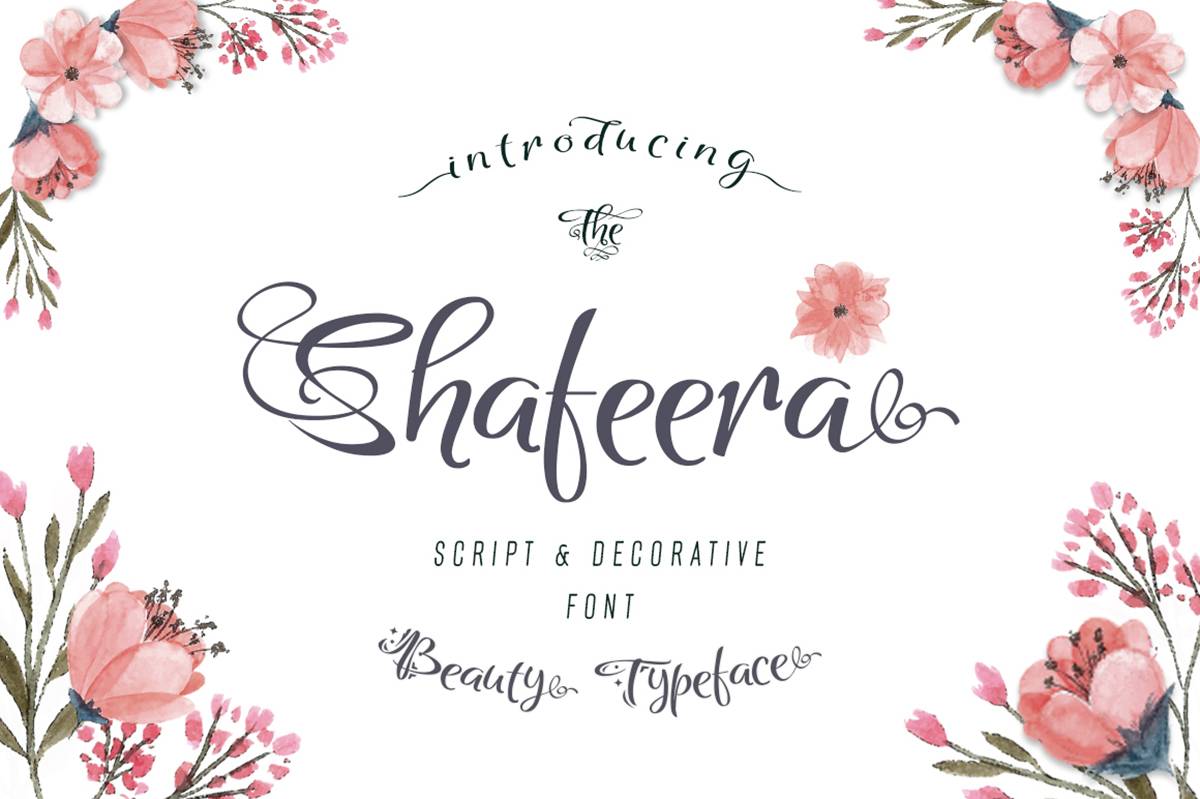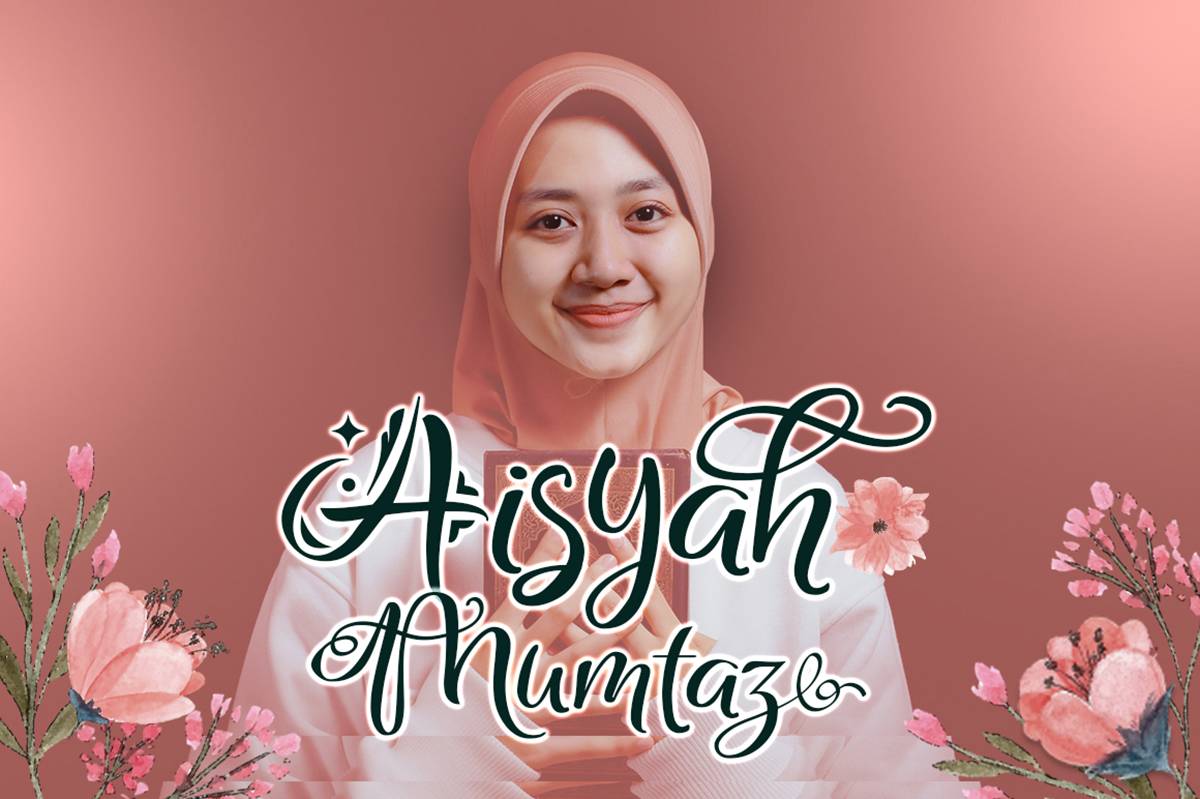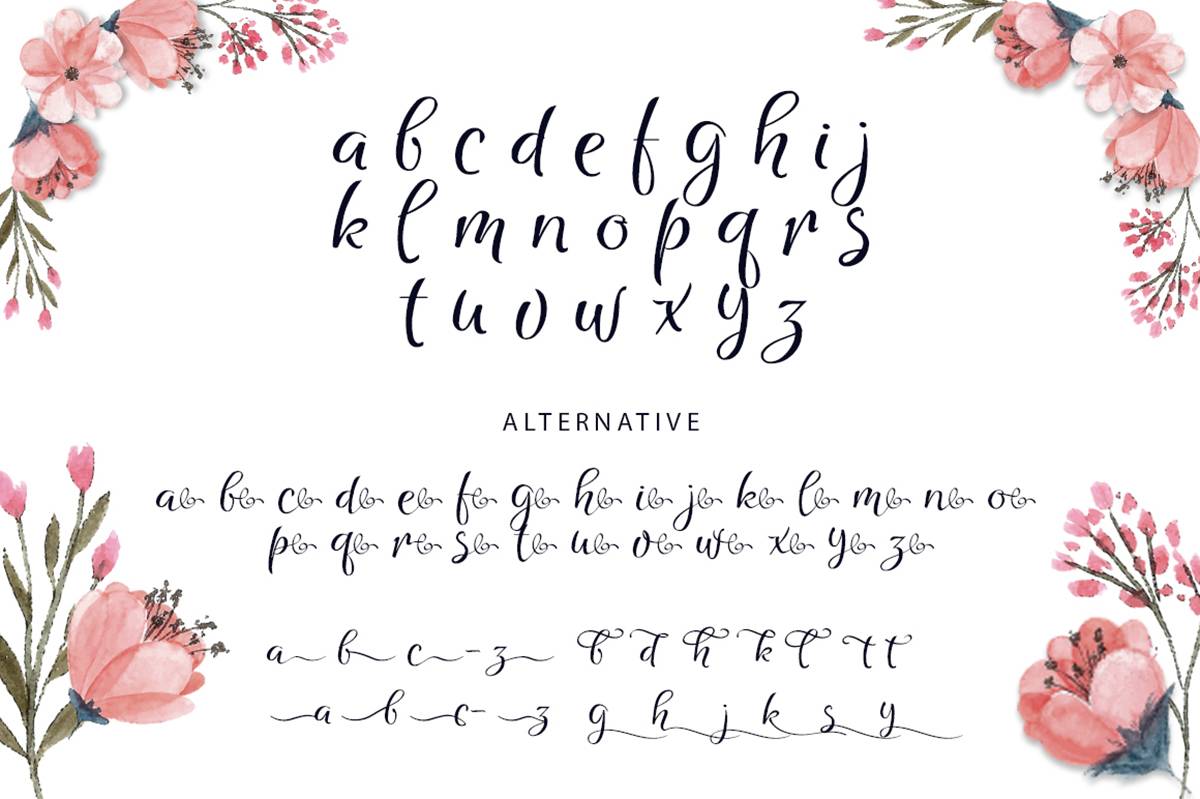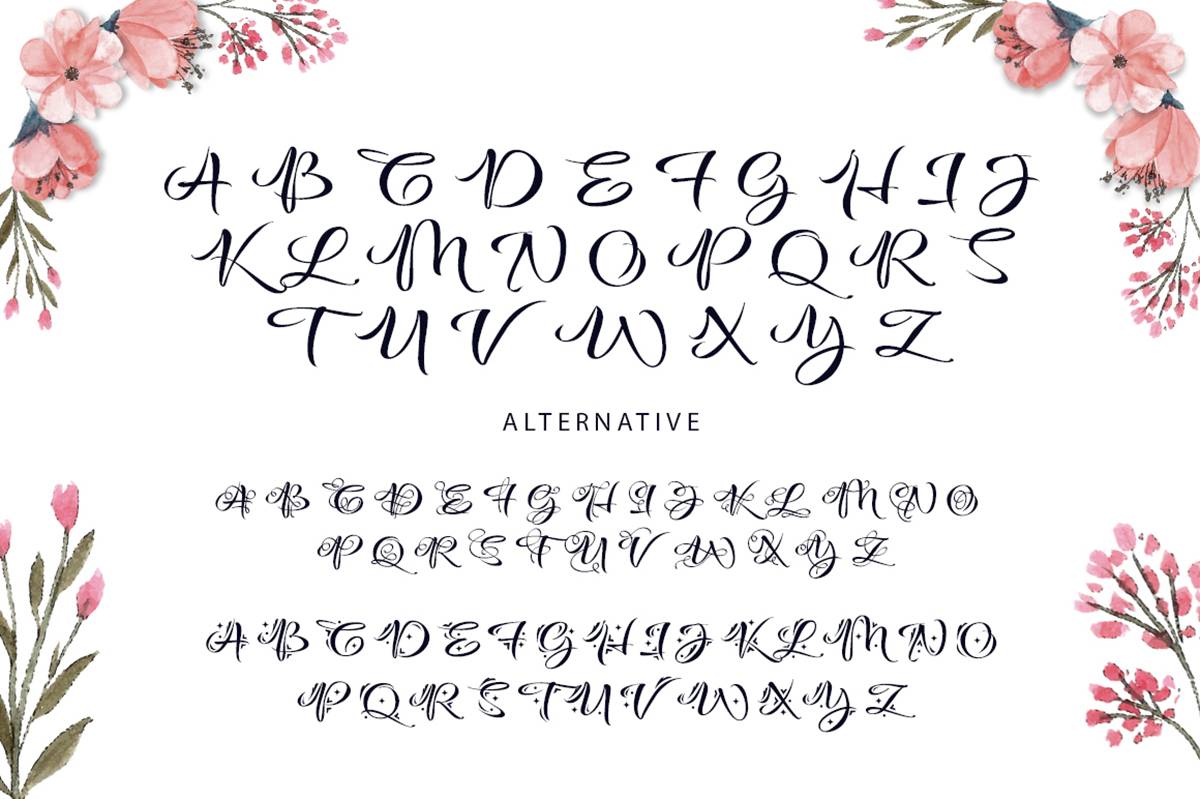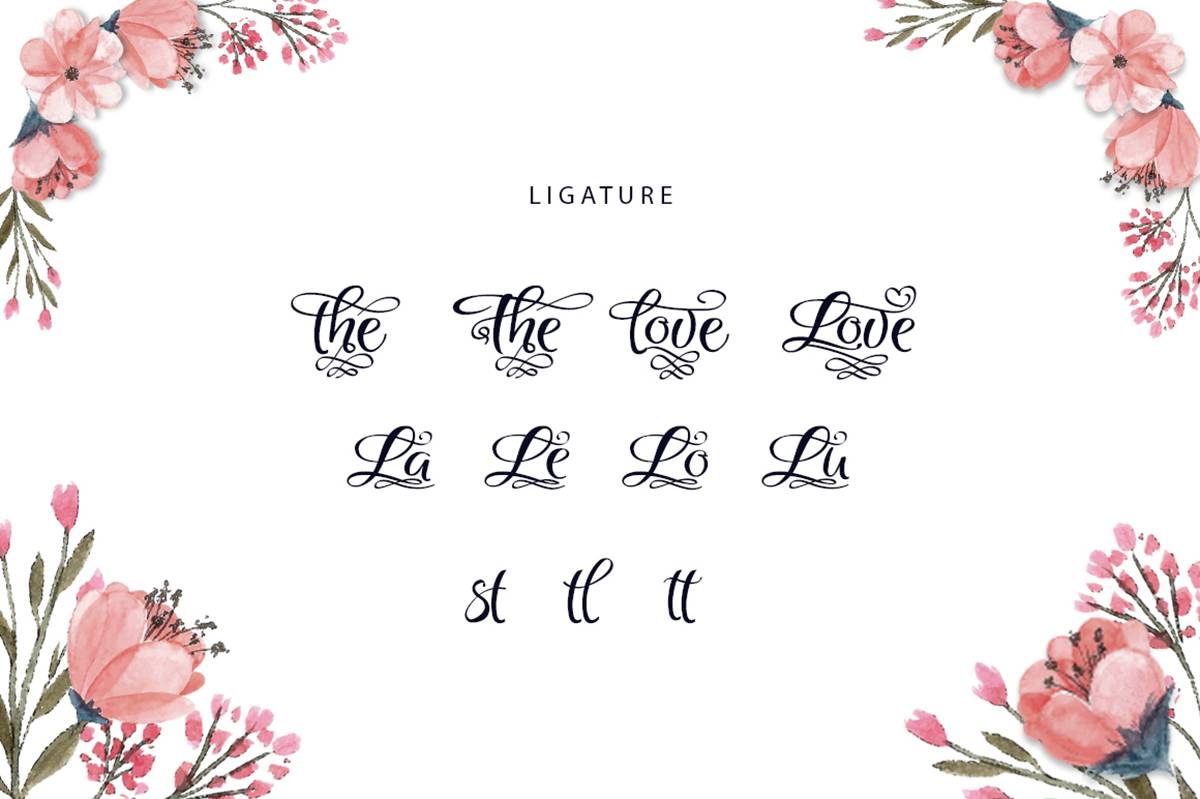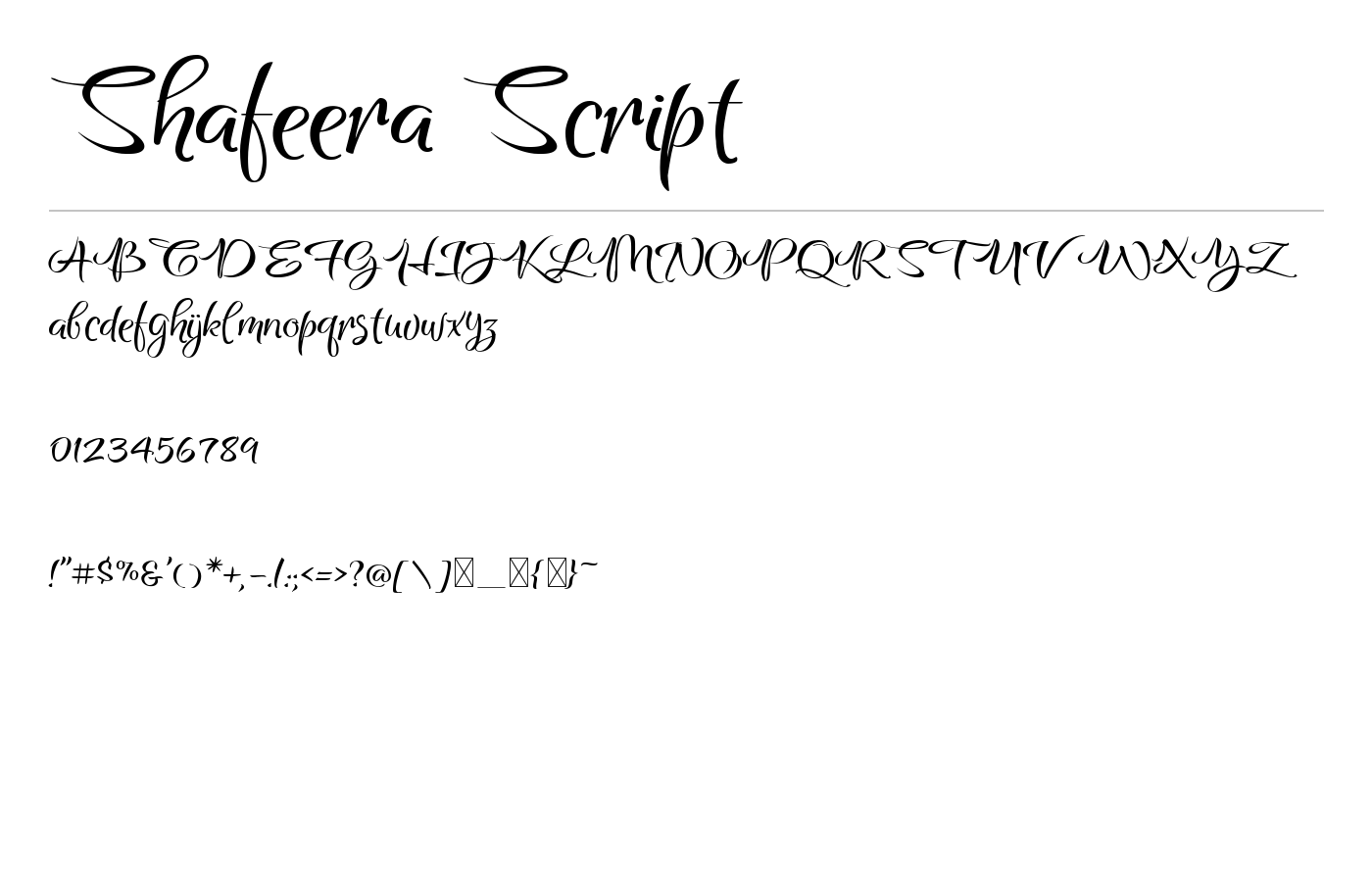
Shafeera Script is an elegant, decorative script font featuring delicate, flowing strokes and a graceful, handwritten style. Its slender, high-contrast letterforms with distinctive swashes and flourishes create a refined and artistic feel, making it perfect for invitations, branding, and upscale design projects that seek a sophisticated, personal touch. This font works beautifully in headlines and display settings where its unique character can shine.
Shafeera Font
About Shafeera Font